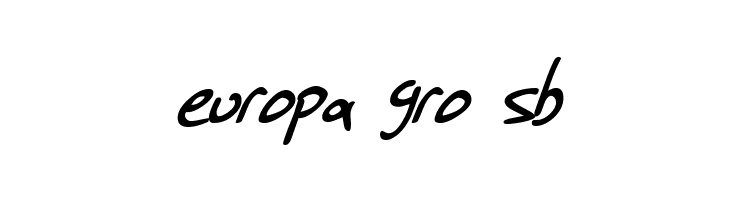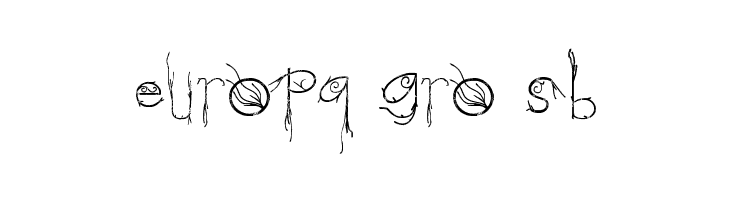
A playful, cursive handwritten font with smooth, connected characters.
A bold, italic script font with a dynamic and energetic style.
A casual, handwritten-style font with a dynamic, slanted appearance.
A playful, stone-like font with a rugged, textured appearance.
An artistic serif font with decorative, vine-like embellishments.
A bold, adventurous font inspired by African wildlife and culture.